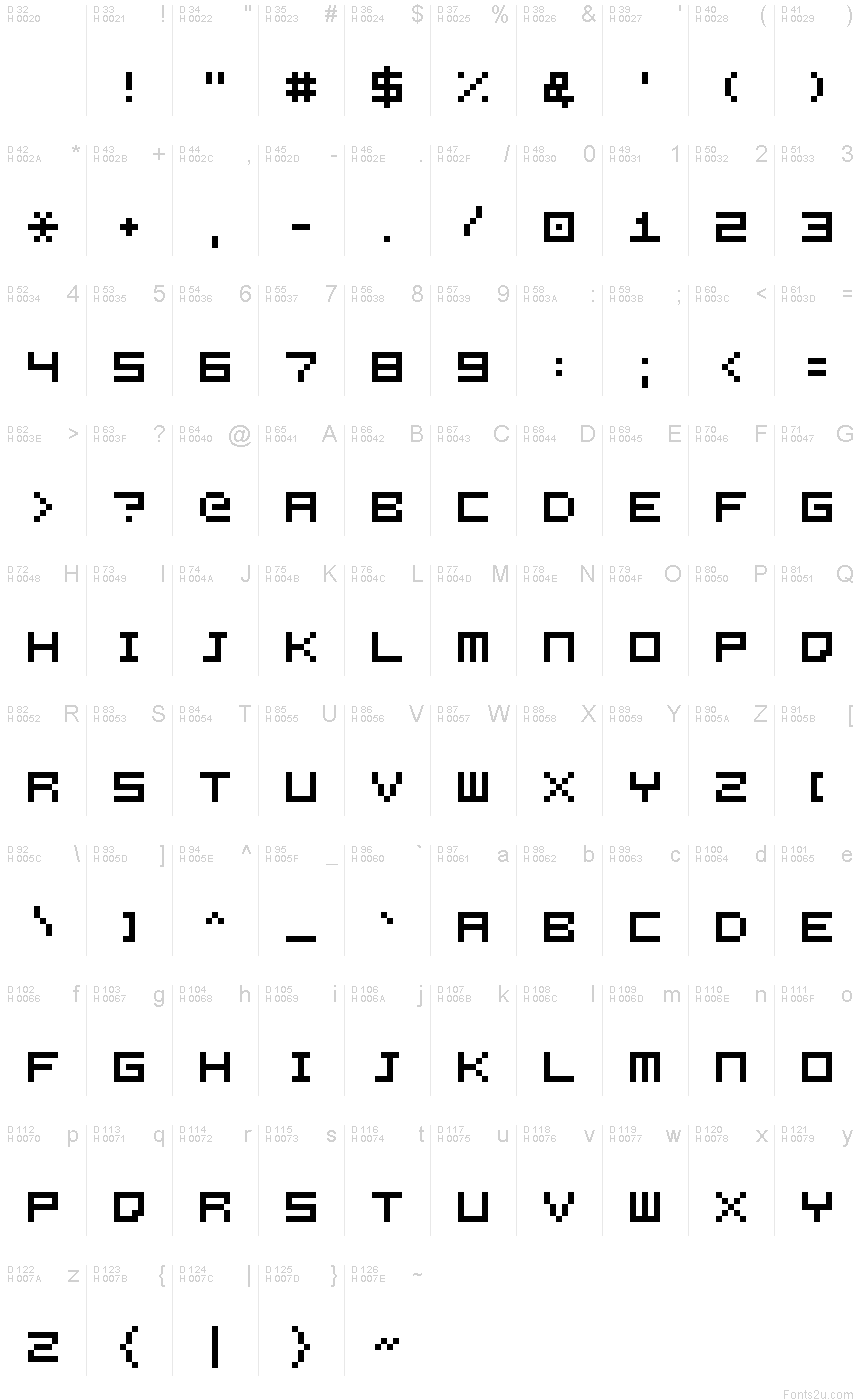
G15 by Grainger is a free pixel display font built from broad rectangular strokes and hard right angles. Its blocky caps combine solid masses with square gaps and clipped sections, recalling early computer graphics and arcade lettering.
Digital graphics are its clearest setting, especially interface art and game screens that benefit from a strict grid and an electronic, machine-made mood. Posters and music merchandise suit its stark techno shapes too.